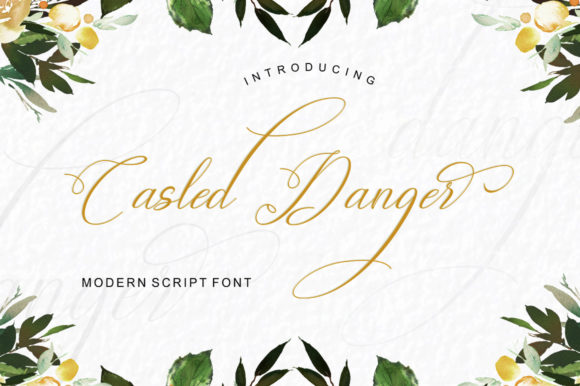
Ah, the eternal quest for the perfect font. I’ve been there, done that, and got the t-shirt. You’re working on a project, and everything is going great – until you need to add some text. And then, it hits you: what’s the right font for this project? I’ve spent hours scrolling through font libraries, searching for that one special something. And then, I stumbled upon Casled Danger.
First Impressions: Casled Danger
Casled Danger is a stunning and elegant handwritten font with an authentic feel. As soon as I saw it, I knew I had to give it a try. The bold swashes and fluid lines immediately caught my attention. I was excited to see if it would live up to my expectations.
- ✨ Elegant and sophisticated look
- ✅ Highly legible, even in smaller sizes
- 💫 Beautiful swashes and flourishes
- 📚 Works well for a variety of design projects, from invitations to branding
- 🤔 Some characters may not work well in very small sizes (less than 10pt)
- ⚠️ Limited availability of certain OpenType features in older software
The Story Behind Casled Danger
Casled Danger was designed with the goal of creating a beautiful, elegant font that would evoke a sense of luxury and sophistication. The designer, inspired by traditional calligraphy and handwriting, aimed to create a font that would be both highly legible and visually stunning.
Q: Is Casled Danger suitable for body text?
A: While Casled Danger is highly legible, it’s primarily designed for display text. For body text, you may want to consider a font with a more traditional design.